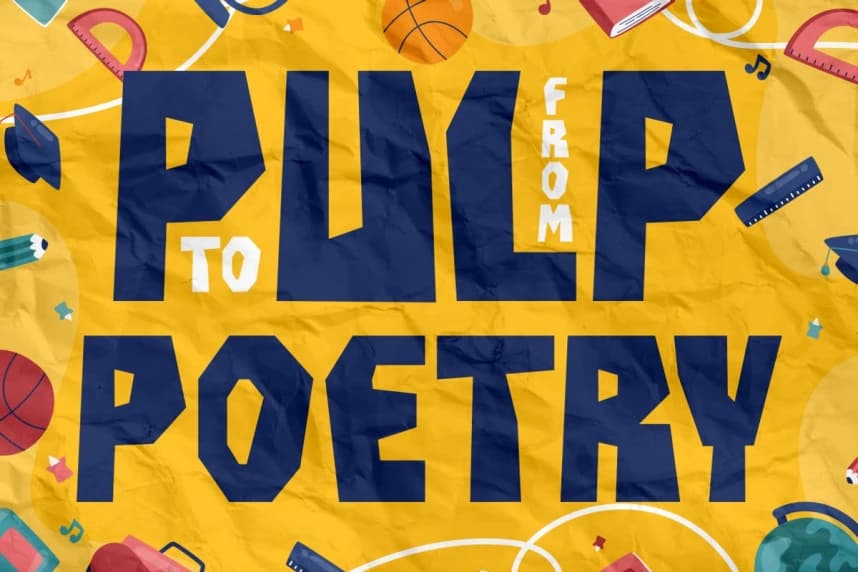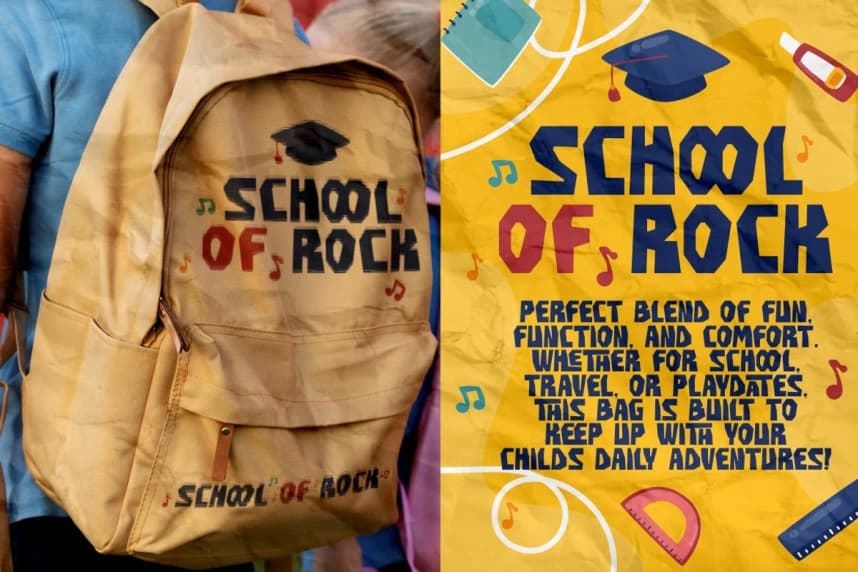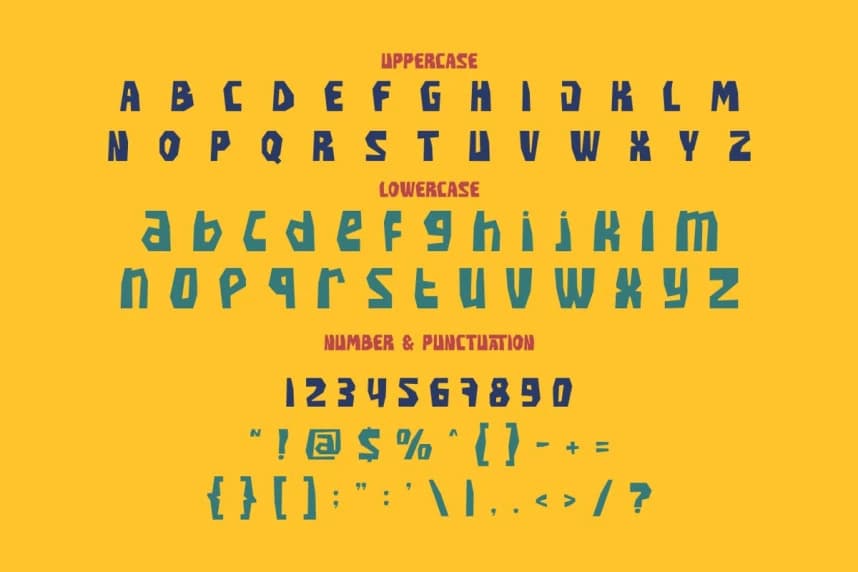
Paper Slash Font
Paper Slash Font - Paper Cut Typeface, a fun, bold, and uniquely handcrafted font that brings the charm of cut-out paper letters to your designs. This playful display font features sharp, irregular edges that mimic hand-cut paper shapes, creating a dynamic and energetic feel.